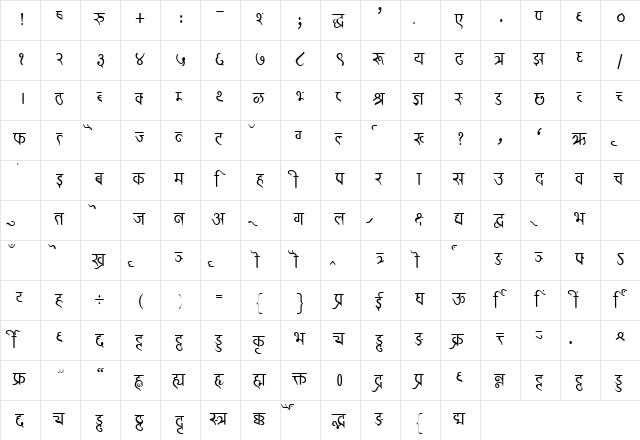
Kruti Dev 326 Thin Font Preview
Kruti Dev 326 Thin
Design Context for Kruti Dev 326 Typeface
Kruti Dev 326 is a composed and adaptable typeface that performs quietly and consistently across a wide range of design contexts. The delicate stroke weight brings airiness and refinement to layouts.
Pro Tip: Use Kruti Dev 326 in both headline and body roles to test its range before committing to a single application.